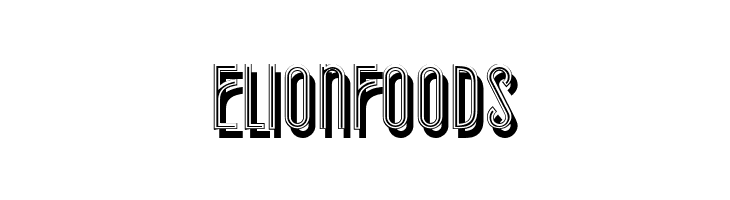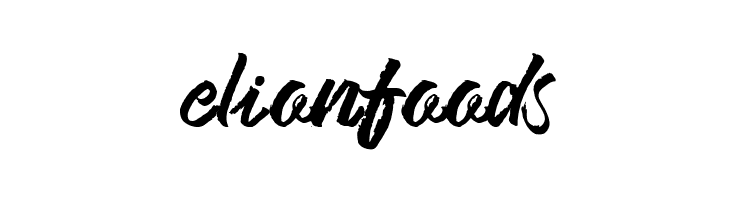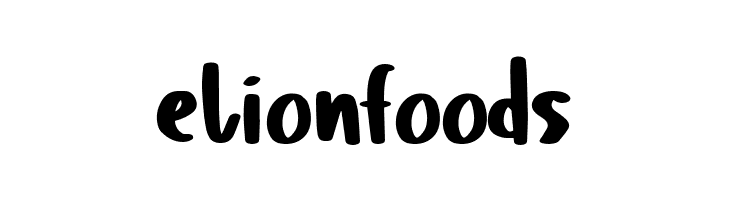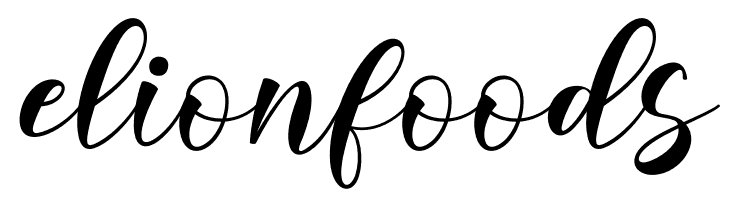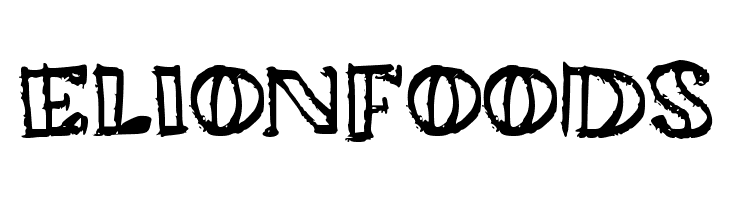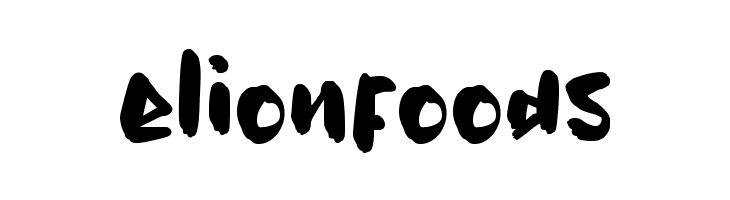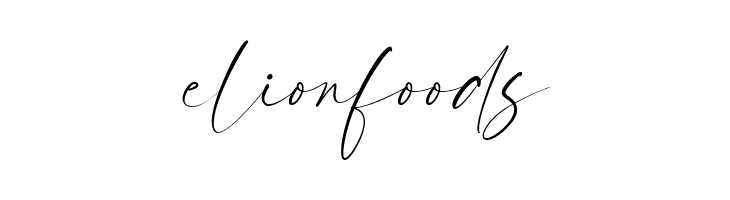
• Barefoot
A bold, hand-painted style font with expressive, irregular strokes.
• Barefoot Regular
A bold, decorative font with a three-dimensional effect and condensed style.
• Bareken
A dynamic, cursive script font with elegant curves and decorative flourishes.
• Barela Regular
• barely
A playful and elegant script font with flowing, cursive letterforms.
• Barelyn
An elegant script font with flowing, cursive letters and artistic flair.
• Baremila
A fluid, cursive script font with a natural handwritten style.
• Baremila
A cursive, handwritten font with elegant, flowing strokes and dynamic contrast.
• Barens
A bold, expressive handwritten font with dynamic brush strokes.
• Baret
A bold, distressed font with a hand-drawn, grunge aesthetic.